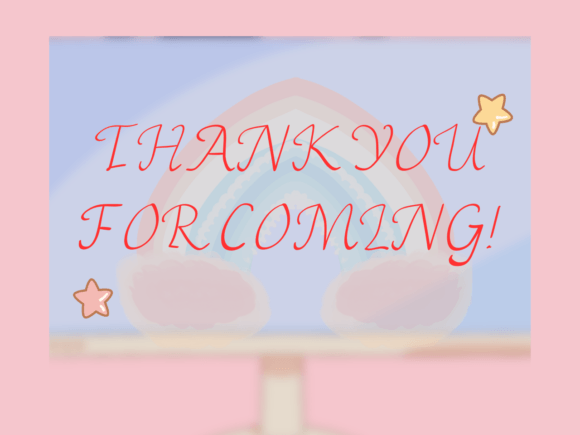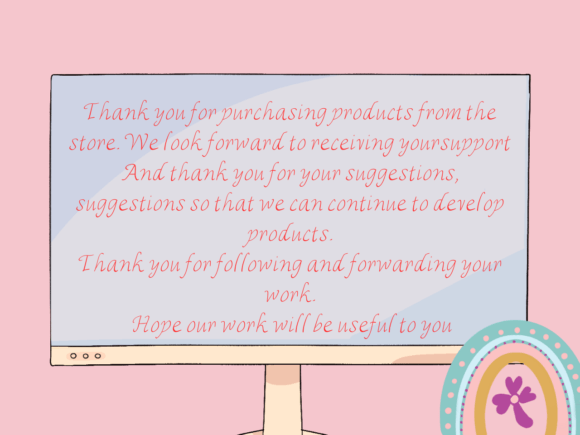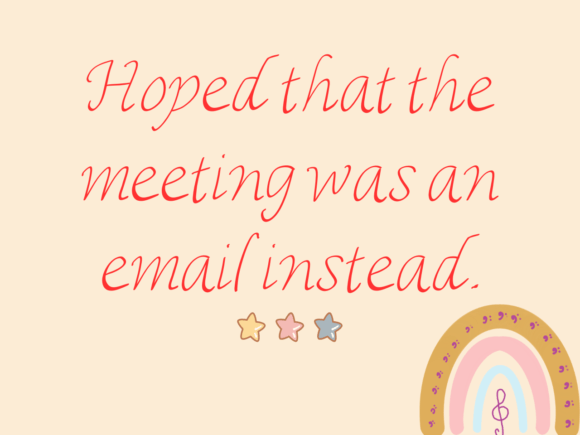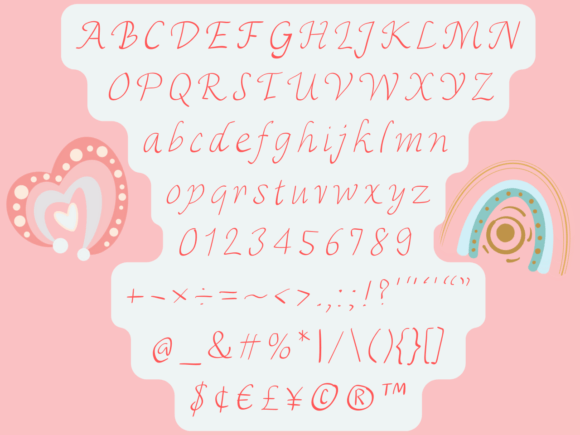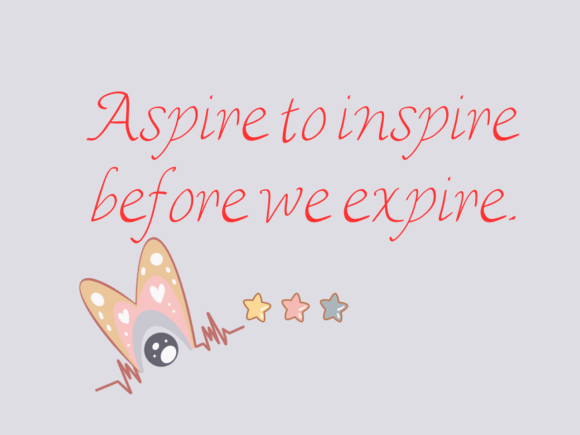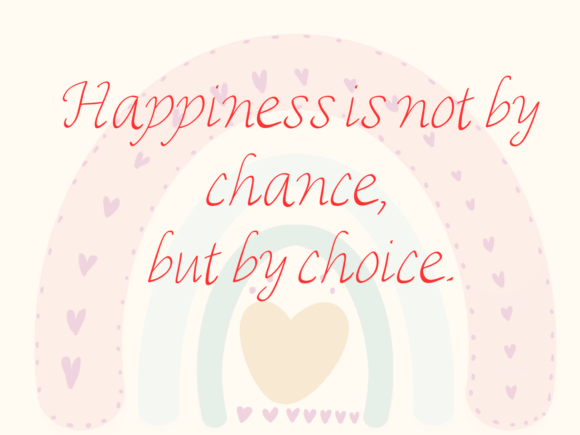
Discover the Artistic Charm of Chanda Font: Elevate Your Designs with Unique Handwritten Style
Are you a designer or crafter looking for a font that can add a personal touch to your work? Look no further than Chanda Font, a beautiful and artistic font that mimics the look of handwriting with different brushes. With its unique design and creative flair, Chanda Font is perfect for lettering, designing greeting cards, wedding cards, and more.
The Concept of Handwriting with Different Brushes
Chanda Font takes inspiration from traditional handwriting techniques, where artists use different brushes to create varying line widths and styles. This font design replicates the same effect, giving your text a distinct, hand-crafted look that’s sure to stand out. Whether you’re creating digital art, crafting invitations, or designing social media graphics, Chanda Font adds a touch of elegance and sophistication to your work.
Unique Font Design for Creative Projects
Chanda Font features artistic characters that are carefully designed to give your work a creative edge. The font’s unique design makes it perfect for a variety of projects, including:
- Lettering: Add a personal touch to your lettering projects with Chanda Font’s elegant and artistic style.
- Greeting Cards: Create beautiful and eye-catching greeting cards for special occasions like birthdays, weddings, and holidays.
- Wedding Cards: Make your wedding stationery stand out with Chanda Font’s romantic and sophisticated design.
- Digital Art: Use Chanda Font to add a touch of personality to your digital art, illustrations, and graphics.
Key Features of Chanda Font
So, what makes Chanda Font so special? Here are some of its key features:
- Unique Brush Stroke Design: Chanda Font features a range of brush strokes, giving your text a natural, hand-crafted look.
- Artistic Characters: The font’s artistic characters are designed to add a creative touch to your work.
- High-Quality Design: Chanda Font is designed with high-quality graphics, ensuring that your work looks professional and polished.
Tips for Using Chanda Font Effectively
To get the most out of Chanda Font, here are some tips to keep in mind:
- Experiment with Different Sizes: Chanda Font looks great in a range of sizes, from small and delicate to large and bold.
- Pair with Other Fonts: Combine Chanda Font with other fonts to create a unique and eye-catching design.
- Use in Combination with Images: Chanda Font pairs well with images, making it perfect for creating social media graphics and digital art.
- Pay Attention to Color: Choose colors that complement the font’s artistic design, such as pastel shades or rich jewel tones.
Chanda Font is a beautiful and artistic font that’s perfect for designers and crafters looking to add a personal touch to their work. With its unique brush stroke design, artistic characters, and high-quality graphics, Chanda Font is sure to elevate your designs and make them stand out. Whether you’re creating lettering, greeting cards, wedding cards, or digital art, Chanda Font is a versatile and creative choice that’s sure to inspire.